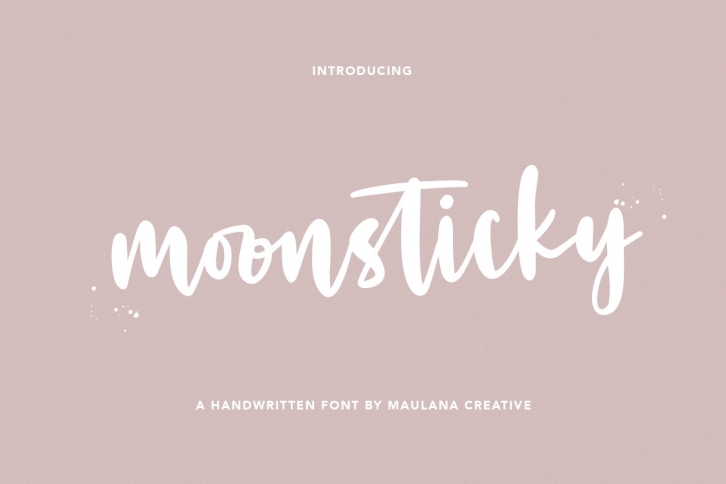
Moonsticky Handwritten is a gorgeous font that was realeased on April 7, 2021. The font can be used in many style contexts and design environments. Perfect for invitations, magazines, websites, logos, and more! It was designed by Maulana Creative and the file size is 8.91 MB. Thanks for checking out this font!